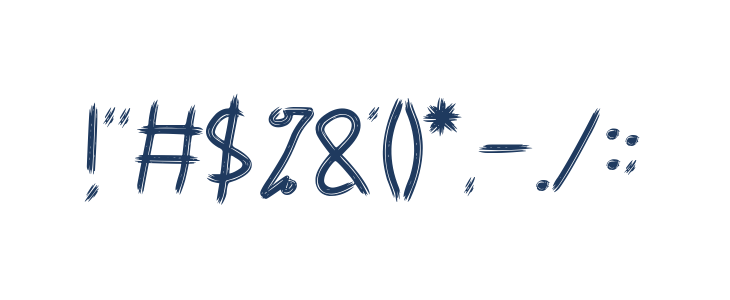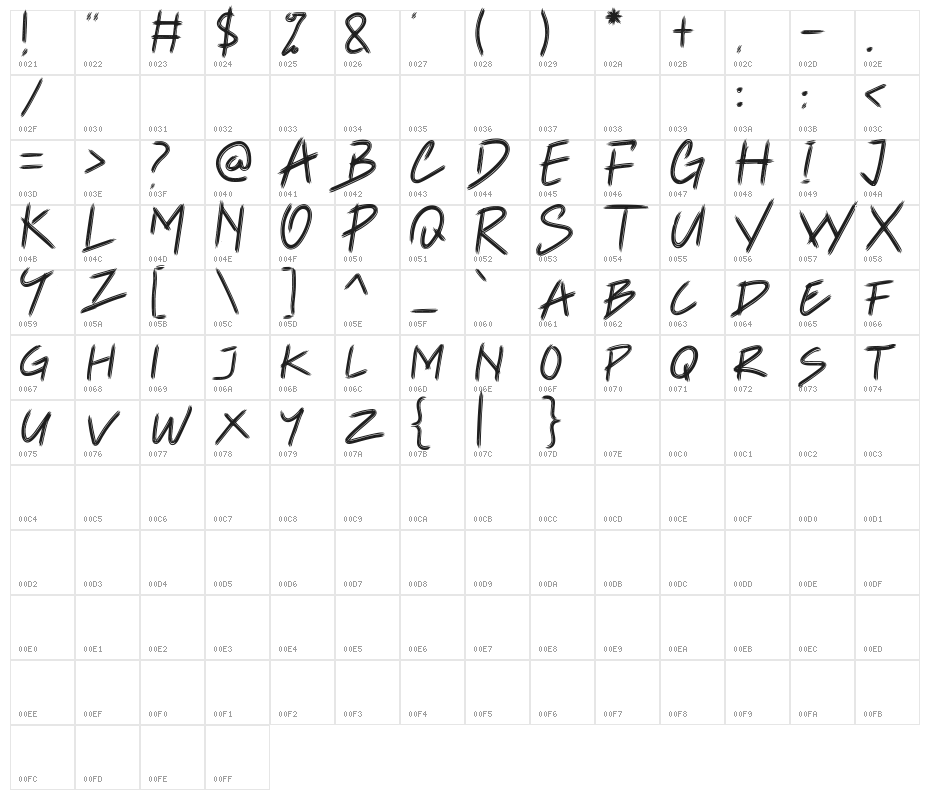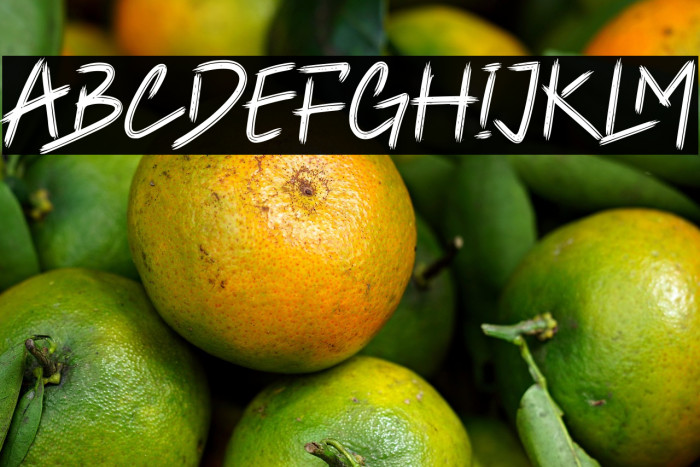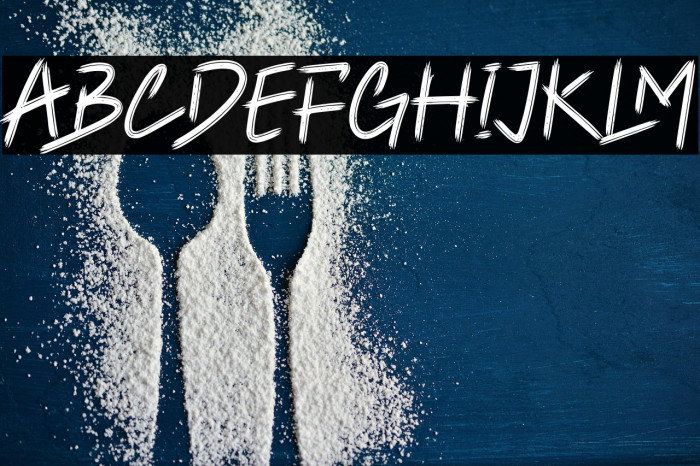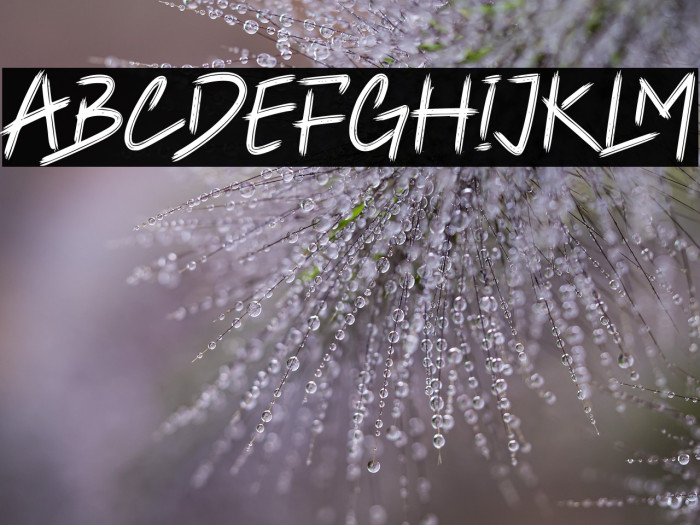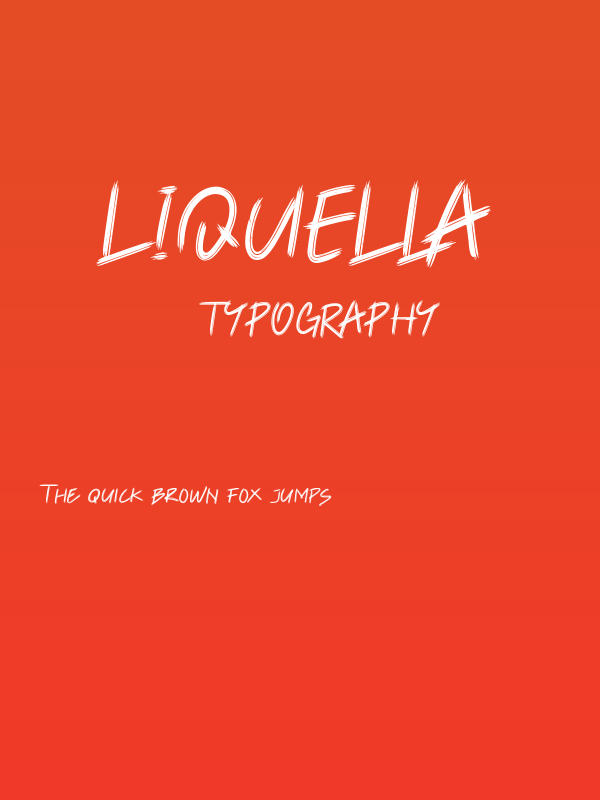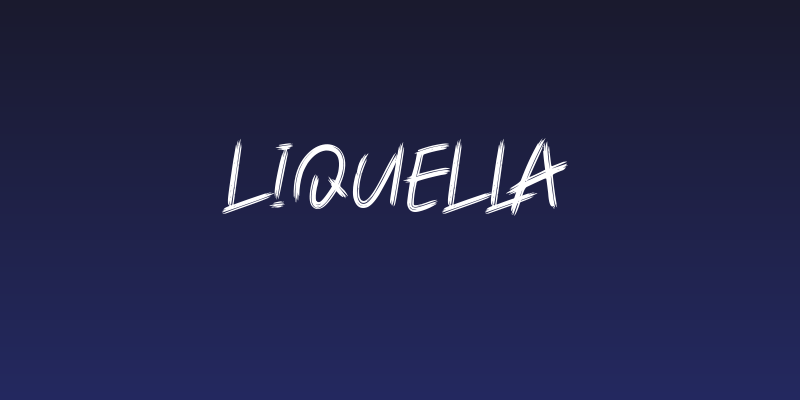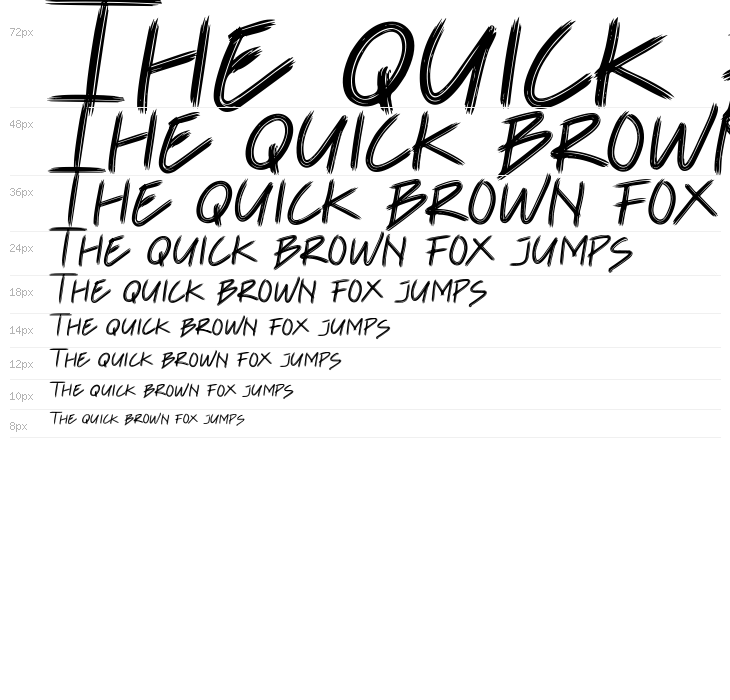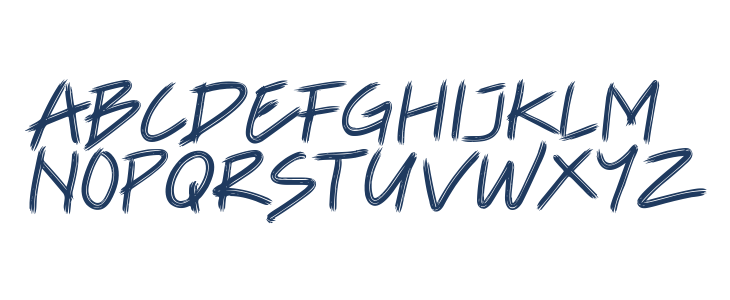
liquella Font
liquella Description
This font exhibits a dynamic and energetic style, characterized by its brush-like strokes that convey a sense of movement and fluidity. The uppercase and lowercase letters maintain a consistent slant, adding to the overall impression of speed and spontaneity. The strokes are bold and slightly irregular, giving the font a handcrafted appearance. The special characters and numbers are designed with the same brush-like quality, ensuring uniformity across the character set. This font is ideal for projects that require a lively and informal touch, such as event posters, creative branding, or artistic merchandise.
| Use Case | Headlines, Logos, Artistic projects |
| Proposed Projects | Event posters, creative branding, artistic merchandise, informal invitations. |